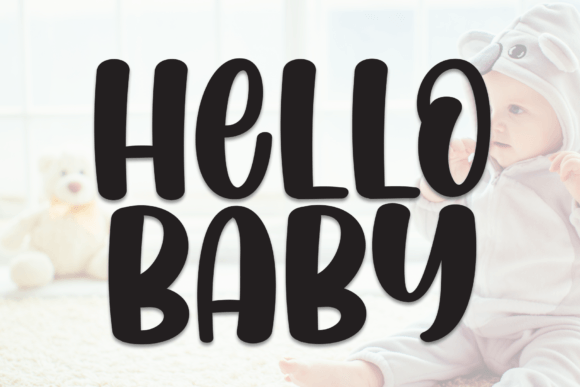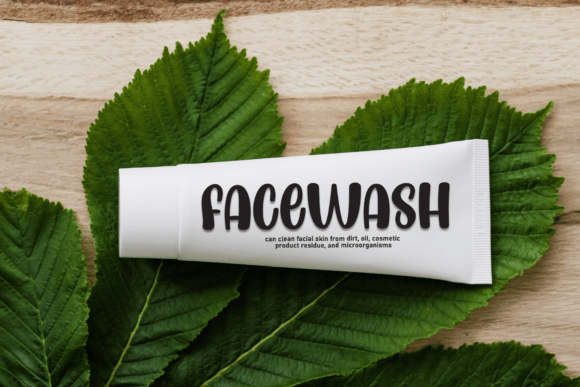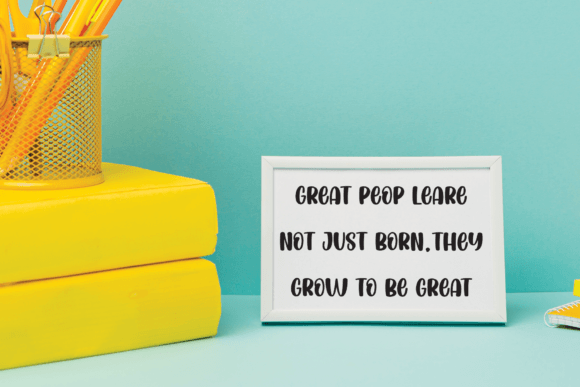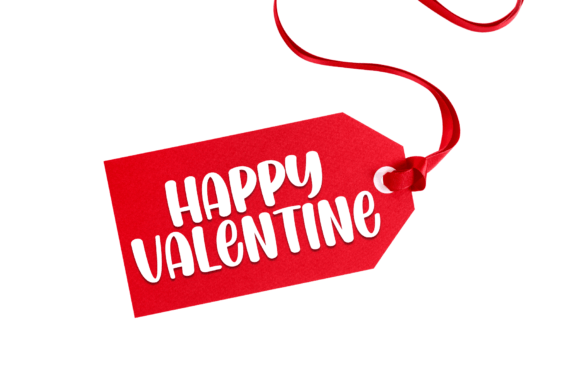
Hello Baby Font
About the Hello Baby Font
The Hello Baby Font offers a perfect balance of form and function for your design needs. Hello Baby is a casual handwritten font exuding playfulness and charm. With its whimsical strokes and friendly demeanor, it captures the spirit of a loyal companion. Perfect for children’s books, greeting cards, and crafting, Hello Baby adds a delightful touch to any project with its endearing character.
Hello Baby Font’s playful nature makes it ideal for children’s projects, branding for playful products, and packaging that targets a younger demographic. It also works well in short, impactful headlines or quotes on greeting cards and invitations. However, its casual style is less suitable for body text, long-form content, or applications requiring high readability, such as website UI or legal documents.
Pairing Hello Baby with a clean sans-serif like Open Sans or Lato provides a strong contrast, balancing its whimsicality with a touch of modern sophistication. For a more vintage feel, consider pairing it with a serif font like Playfair Display or Merriweather. Avoid pairing it with other highly decorative or script fonts, as this could create visual clutter.
The font’s core personality is undeniably friendly and approachable. Its charm is best leveraged in projects needing a lighthearted, informal, and inviting feel.